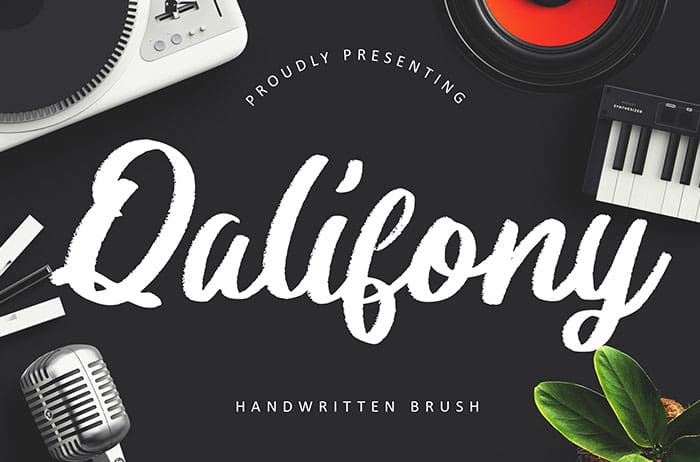
Qalifony Handwritten Font
Qalifony is a Handwritten Font that natural scratch, perfect for your branding projects, advertisements, product packaging, and many more. Thanks to Creatype Studio for sharing this font! Take a look at this portfolio for more of his stunning fonts.